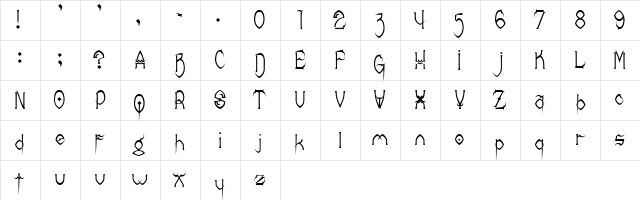
Donree's Claws Regular Free Font
Donree's Claws Regular
Design Context for Donree's Claws
Donree's Claws is a composed and adaptable typeface that performs quietly and consistently across a wide range of design contexts.